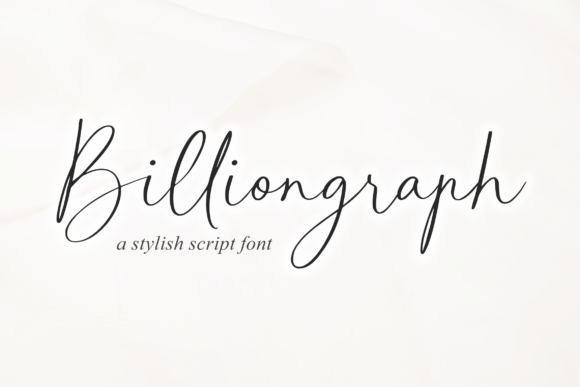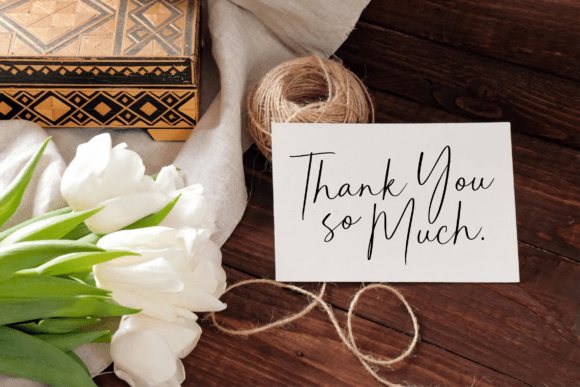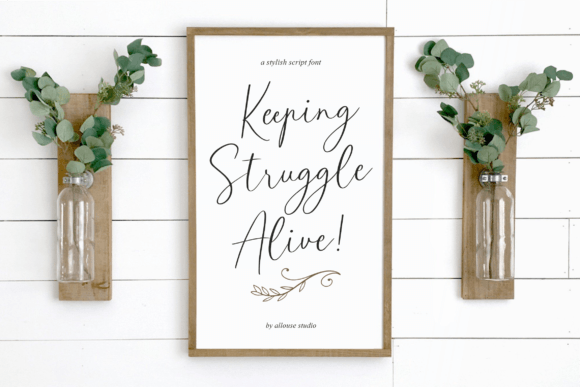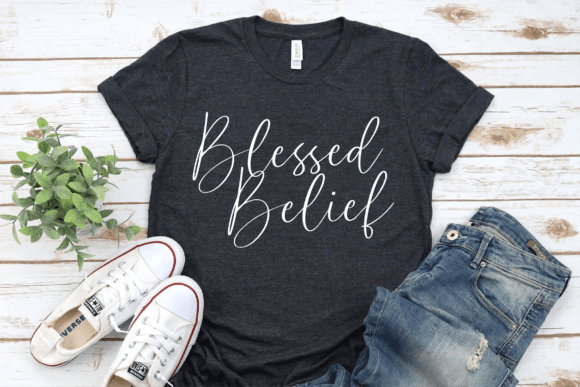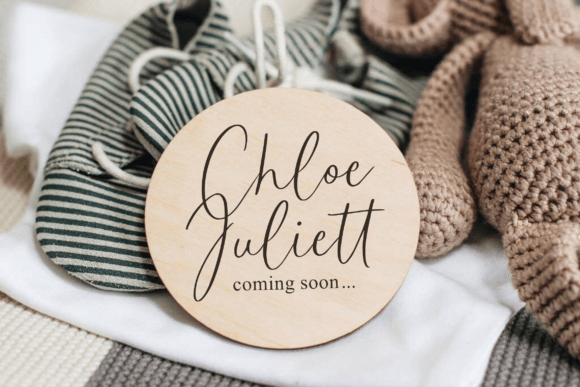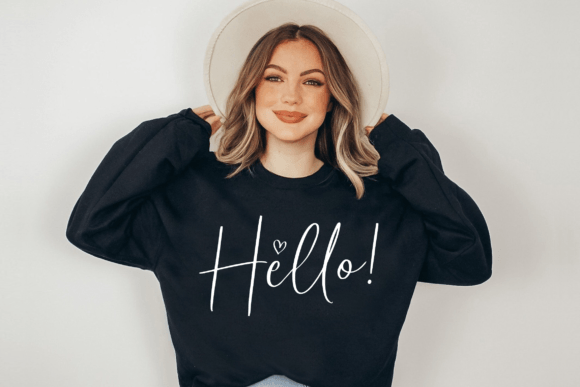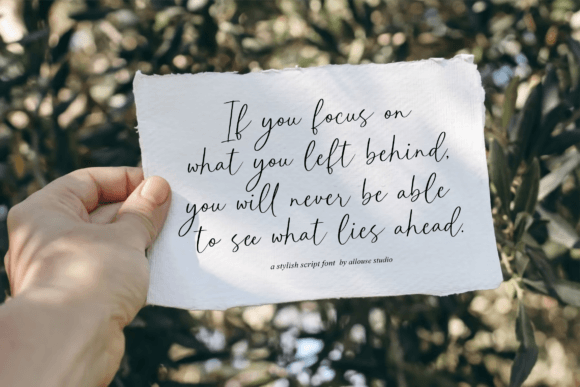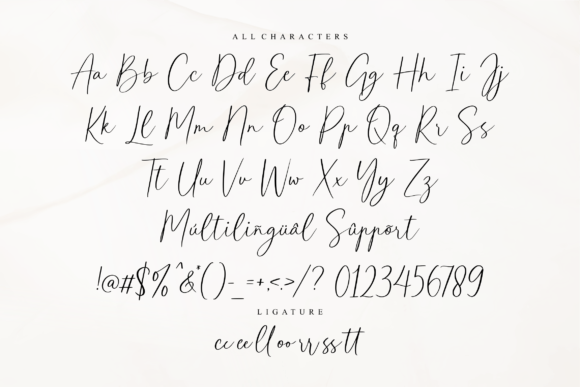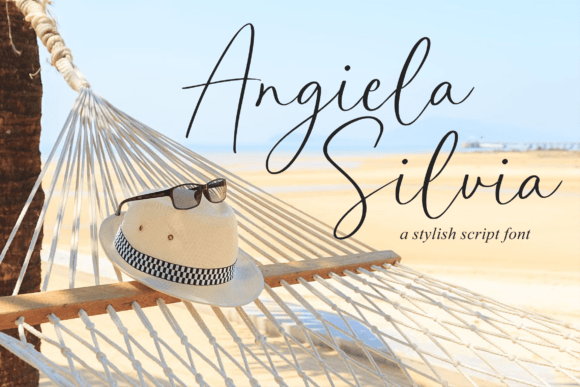
Billiongraph Font
About Billiongraph Font
“Billiongraph” is a beautiful handwritten font that offers versatility and charm for a variety of design applications. This font is an excellent choice for designers and creatives looking to enhance their projects with a handwritten touch.
The flexibility of “Billiongraph” makes it suitable for an array of purposes, from product packaging and branding projects to magazine layouts, social media posts, wedding materials, and more. It can be seamlessly integrated into your design work, adding a personal and relatable quality to your content.
The handwritten style of “Billiongraph” lends a sense of authenticity and creativity to your text. It is particularly useful when you want to convey a warm and inviting feel in your designs or when you need to make words stand out against a background.
By incorporating “Billiongraph” into your design projects, you can elevate the overall look and feel of your materials, ensuring they capture the attention of your audience and leave a memorable impression. Whether you’re a professional designer or someone looking to add a touch of elegance to your creative endeavors, “Billiongraph” is a font that can help you achieve your design goals with style and impact.